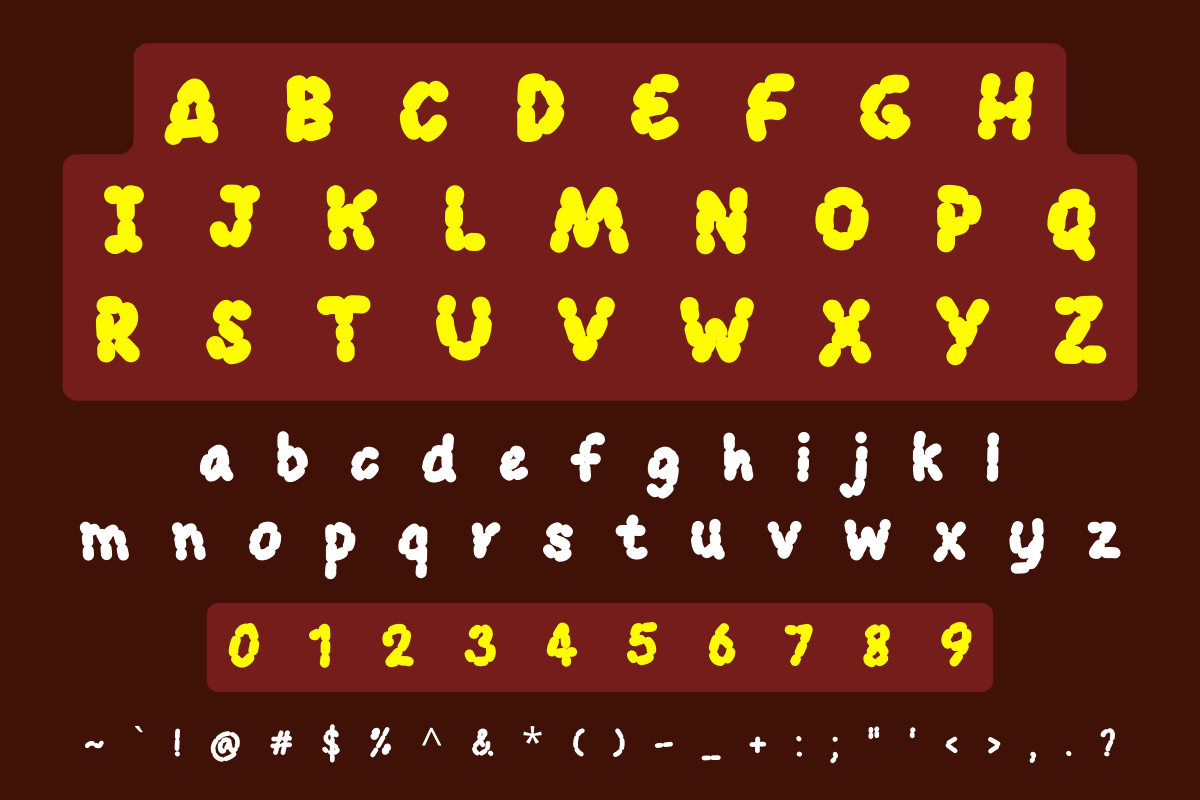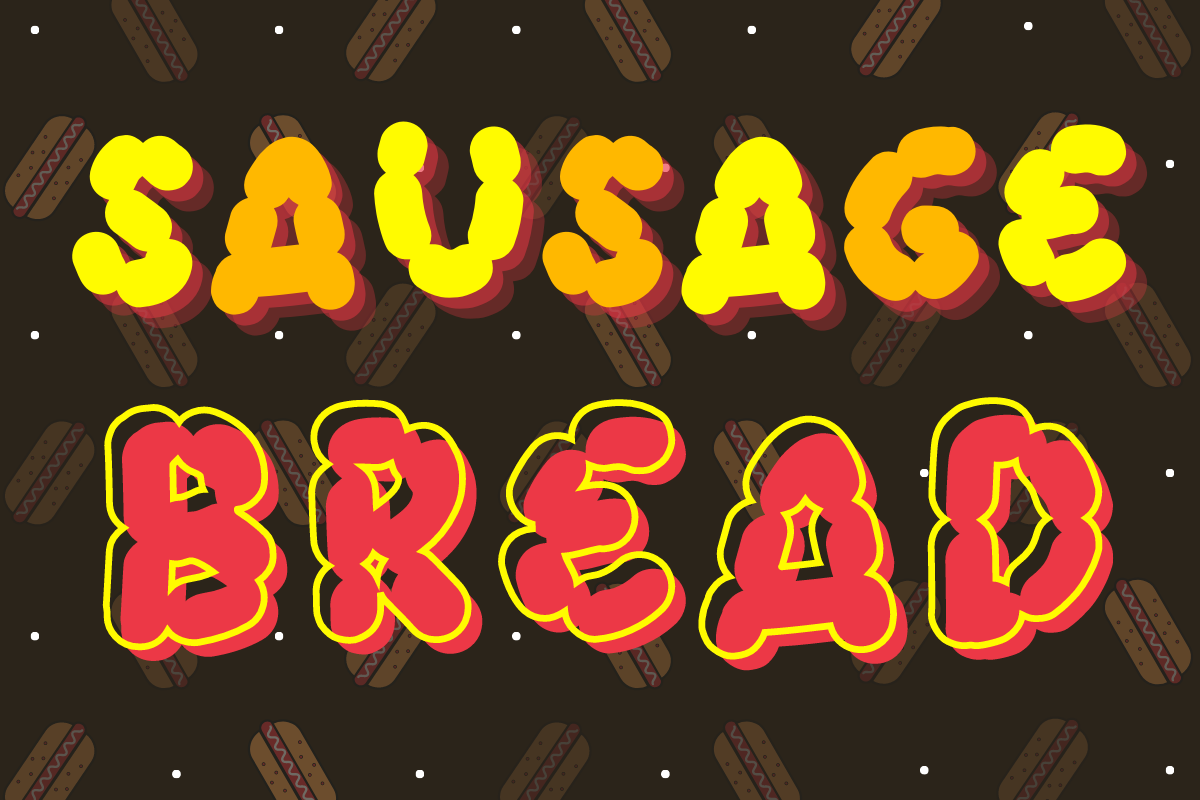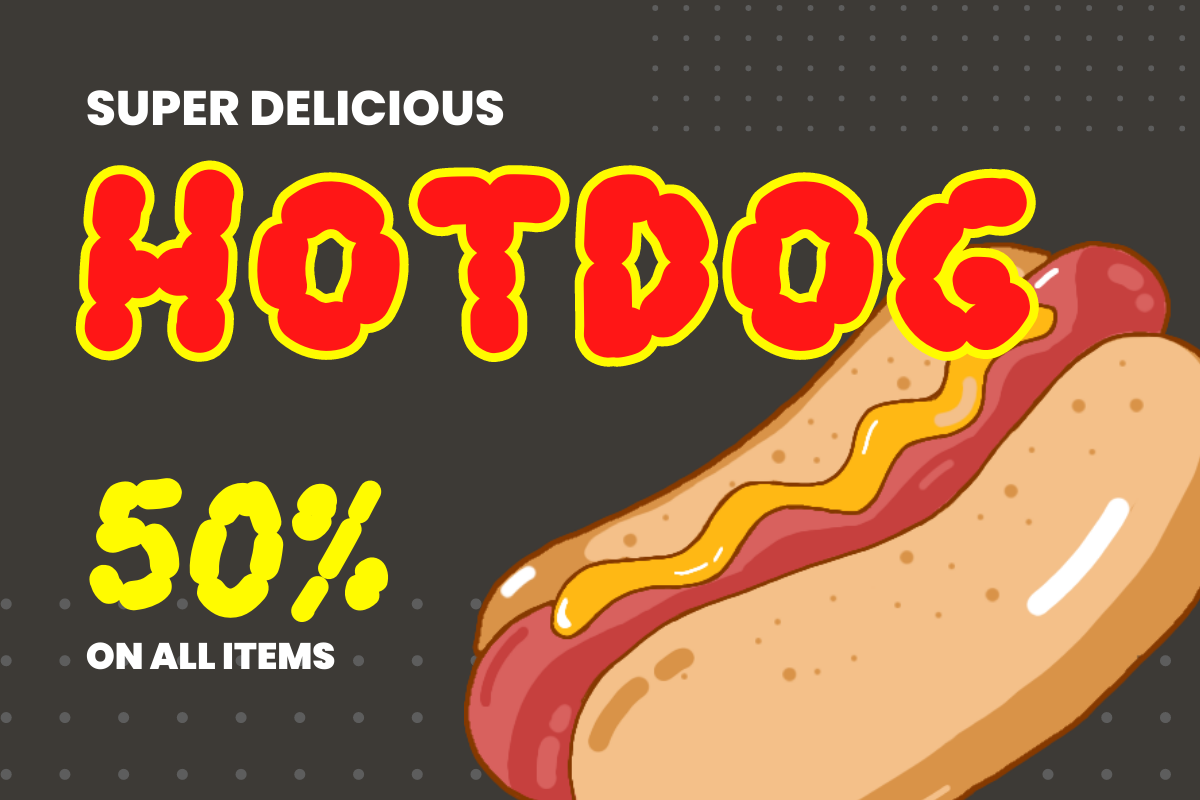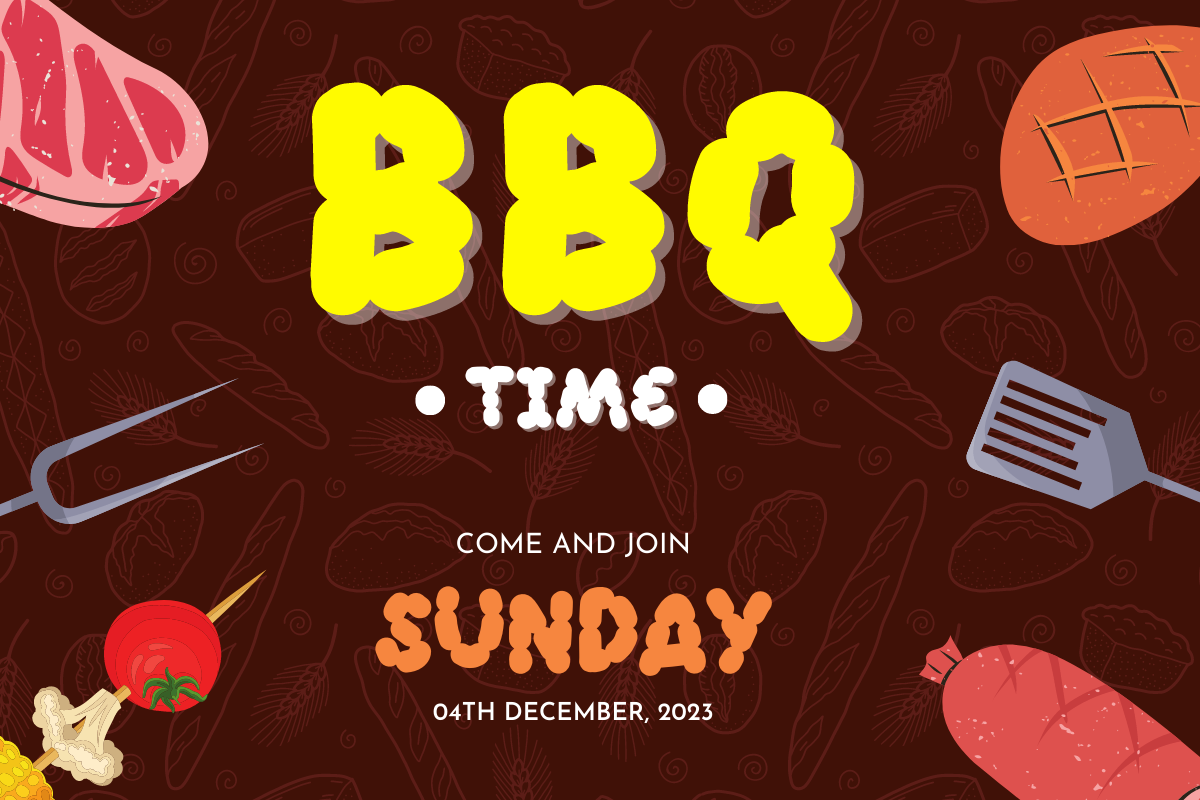
Sausage
Sausage : This is my new font built when hungry. Very suitable for any design purpose like magazines, packaging, branding, posters, greeting cards, letterhead, and many more other creative project.